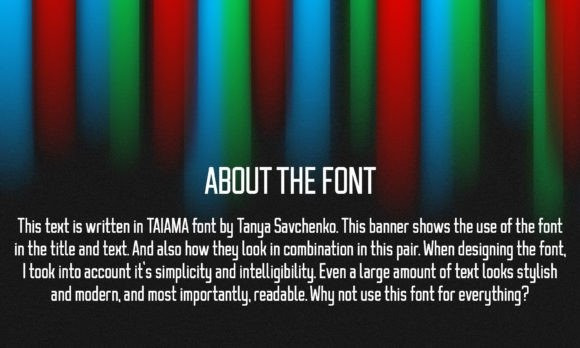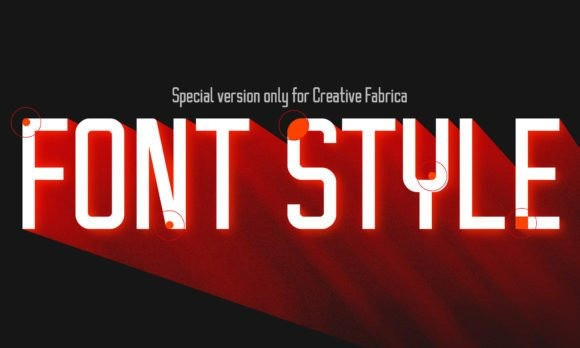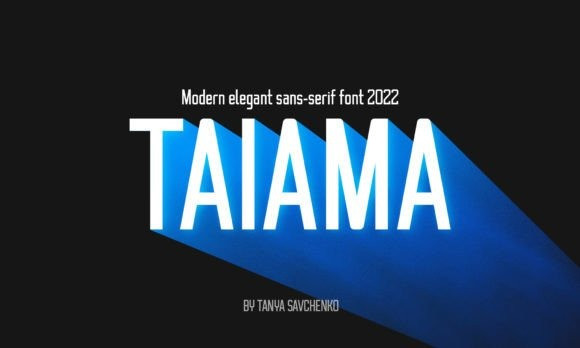
Taiama Font
Taiama Sans Serif Font is a modern and elegant sans serif font characterized by simplicity and intelligibility. Even a large text looks stylish, modern, and most importantly, readable. It can easily be matched to an incredibly large set of projects, so add it to your creative ideas and notice how it makes them stand out!